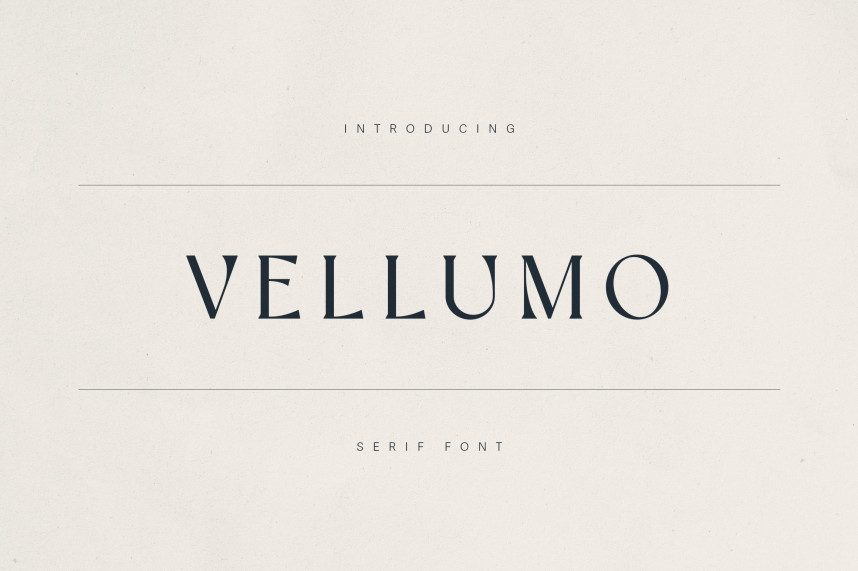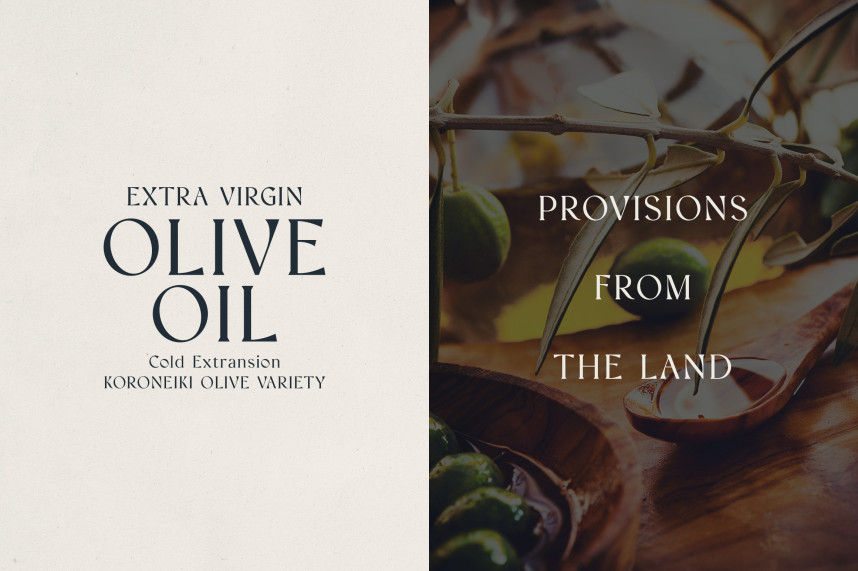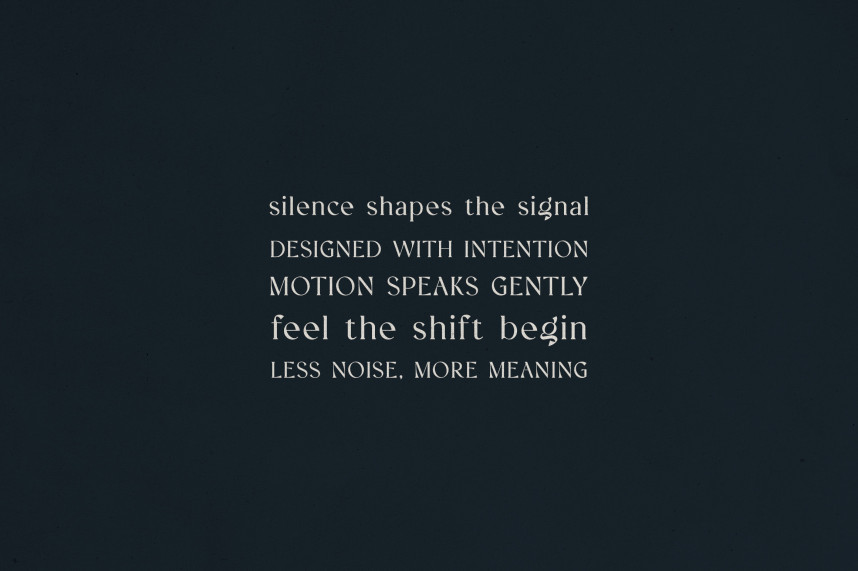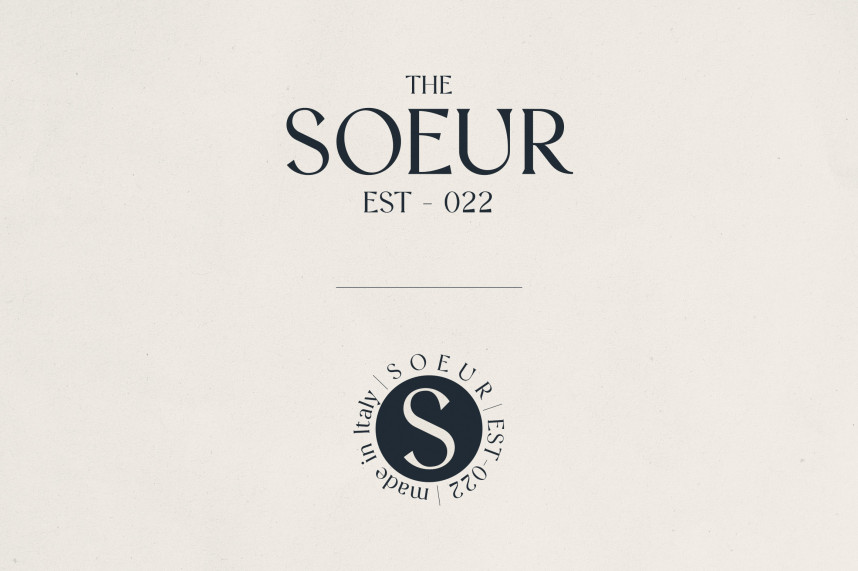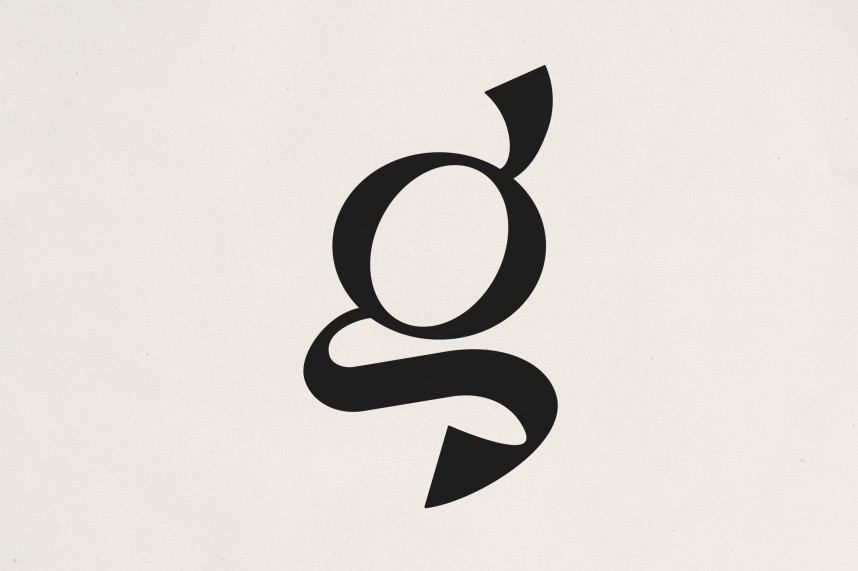
Vellumo Font
Vellumo Font is a refined serif typeface that blends timeless elegance with a contemporary voice. Featuring high-contrast strokes, delicate curves, and distinctive character forms, Vellumo is perfect for projects that demand sophistication and clarity. From organic product labels and artisanal branding to upscale editorial layouts and luxury packaging, this font delivers a graceful and expressive typographic experience.
Inspired by classical forms yet designed for the modern age, Vellumo brings a humanist charm and a whisper of romance—making it ideal for fashion, interiors, lifestyle brands, wellness, and handmade goods.